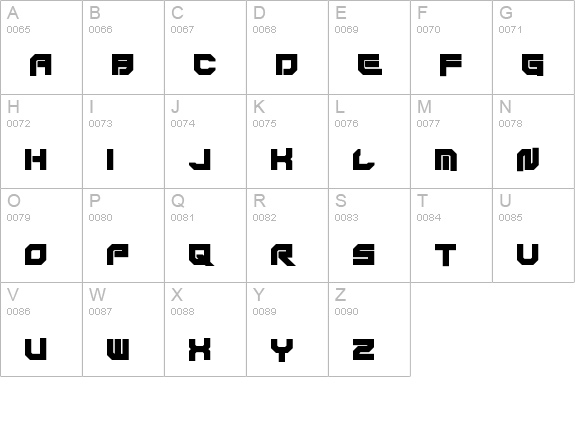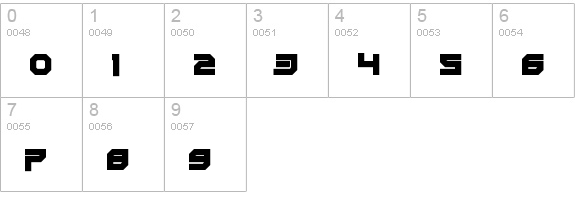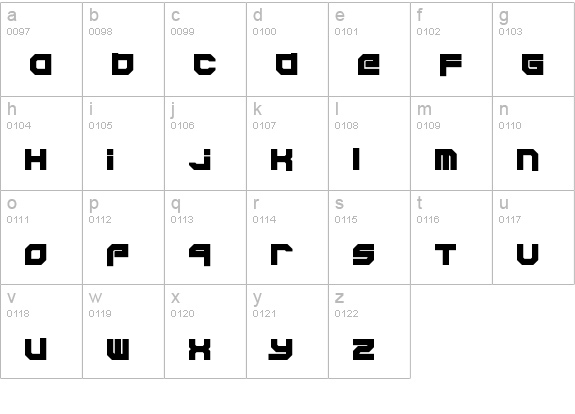
Xodohtro-Nu Regular Font Details
Xodohtro-Nu Regular is the standard, neutral variant in the Xodohtro typeface family \xE2\x80\x94 well suited to general body text, paragraphs, and standard typographic work.
Xodohtro-Nu Regular font is a stylish and modern typeface that exudes elegance and sophistication. With its sleek lines and clean design, this font is perfect for a wide range of design projects, from branding to editorial design. The Xodohtro-Nu Regular font is versatile and easy to read, making it an excellent choice for both print and digital applications. The best part? Xodohtro-Nu Regular font is available for free download at FontsMarket.com. This means you can add this beautiful font to your collection without breaking the bank. Whether you're a seasoned designer looking to refresh your font library or a beginner exploring typography for the first time, Xodohtro-Nu Regular font is a fantastic addition to any designer's toolkit. Don't miss out on this opportunity to enhance your designs with the Xodohtro-Nu Regular font. Download it for free today at FontsMarket.com and start creating stunning visuals that stand out from the crowd.